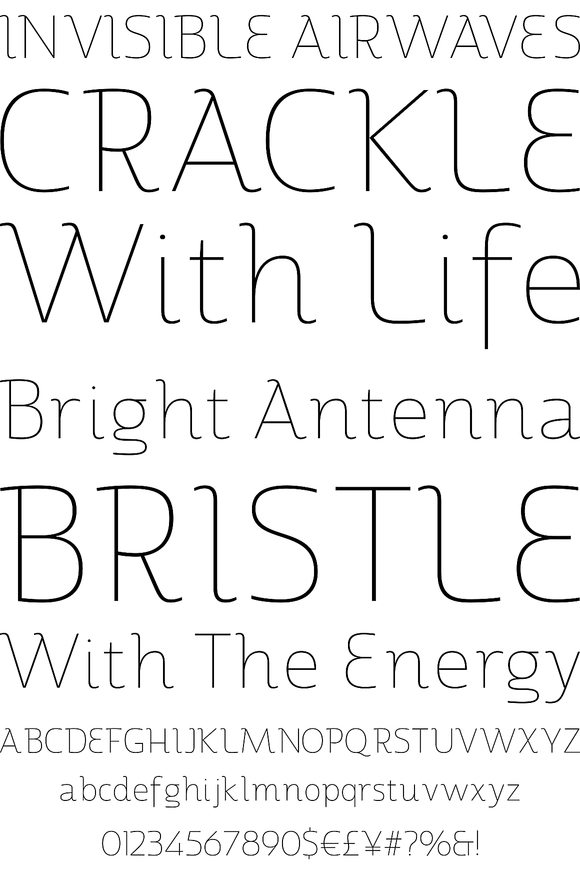
Marintas
Foundry: Insigne
Marintas is a sleek upright italic that offers you a modern look and feel. This elegant sans serif comes across as lively, yet comfortable. Some semi slab characteristics of the font give it a face-forward momentum. These semi slabs, even with their geometric construction, are fluid shapes with a soft hint of brushstroke. The soft curves of Marintas paired with its playful but geometric semi slabs or ending strokes give the face its spirited--though friendly--eye-catching appearance. The Marintas family is comprised of 8 variants, ranging from Thin to Ultra. Its incredible versatility ranges from the delicate hairline to the extreme ultra weight. The heavier weights show some similarity to Antique Olive, and the face has an exuberant South American or Latin feel. This type family is well-suited for advertising, retail, food and beverage products as well as for use in magazines, logotypes, and books. The fonts lend themselves to display settings, but are still very usable for longer copy. Because of its large x-height, the typeface is legible at very small sizes and as a webfont. Marintas has support for extended Latin character set. A wide range of Western languages are also supported, including Central, Eastern and Western European languages. In all, Marintas supports over 40 languages that use the extended Latin script, making Marintas a great choice for multi-lingual publications and packaging. All insigne fonts are fully loaded with OpenType features. Marintas is also equipped for complex professional typography and includes ligatures, alternate characters and fractions. The face includes a number of numeral sets, including old-style and lining figures with superiors and inferiors. OpenType-savvy applications such as Quark or the Adobe Creative Suite can take full advantage of the automatically replacing ligatures and alternates. This family also includes the glyphs to support a wide range of languages. Check out the informative .pdf brochure to see these features in action.